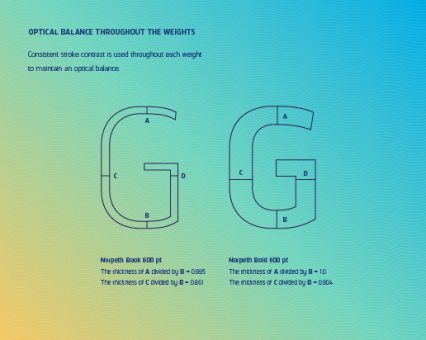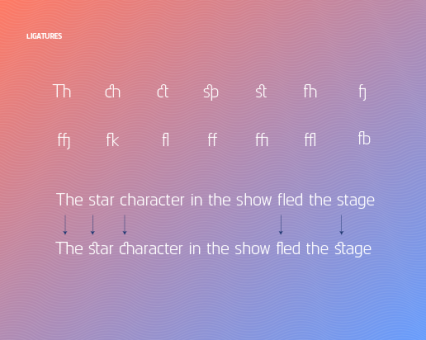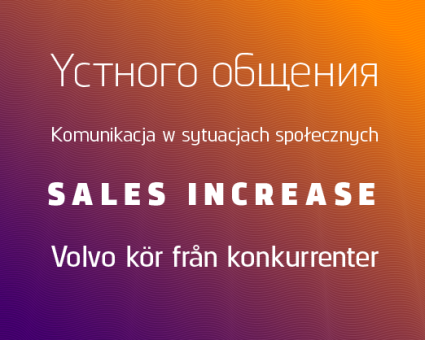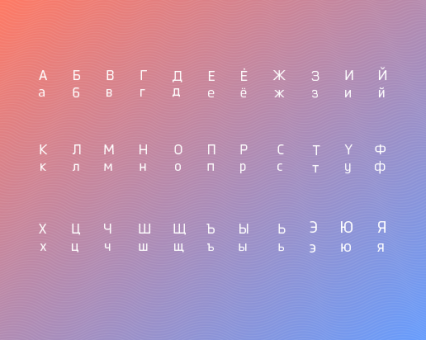
Norpeth
A modern humanist sans serif typeface. The proportions of each character have a strong lateral dynamic that makes it ideal for on screen uses. Also consistent stroke contrast is used throughout each weight to maintain an optical balance. Details include 9 weights and italics, over 570 characters, manually edited kerning and opentype features.